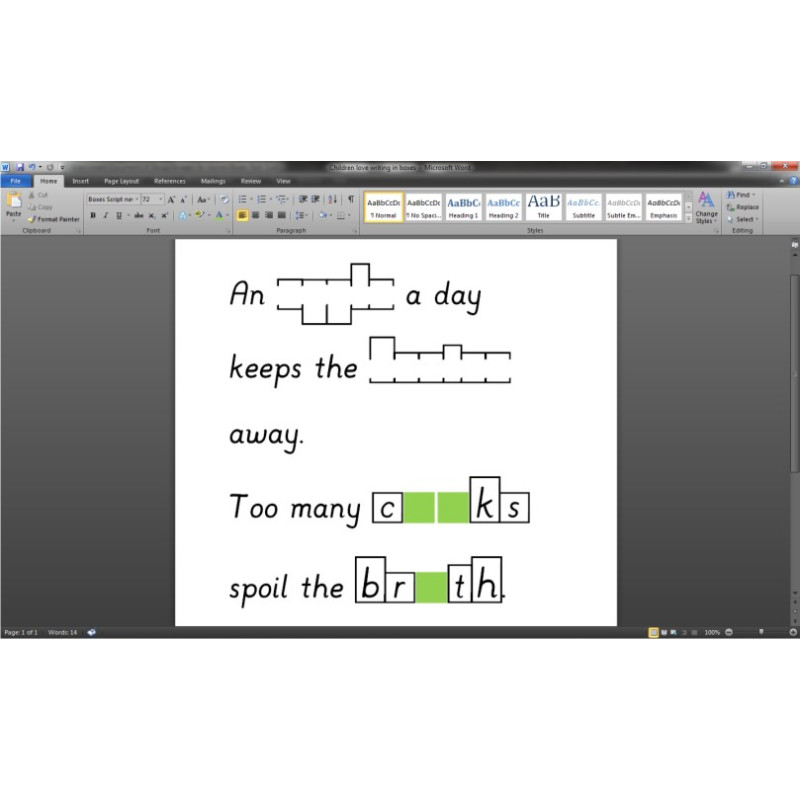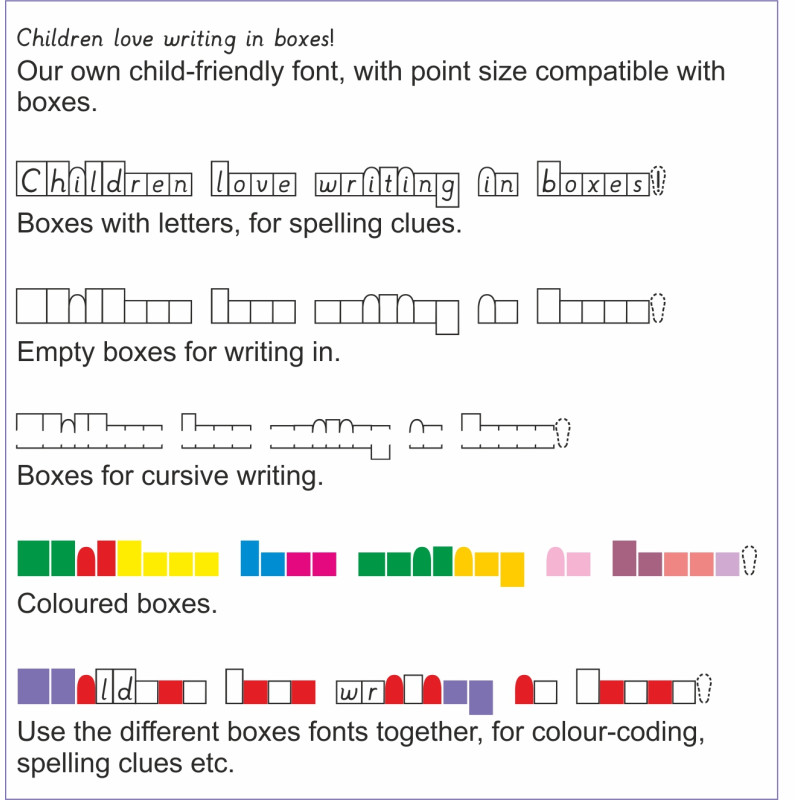
Children love writing in boxes! The Boxes word shape font is a set of six fonts to create visual support for letter and word shapes.  A valuable support for spelling activities, cloze passages, modern languages etc. Includes punctuation and European accents.  Can be formatted like any other font. The Boxes Font is the only tru-type fully configurable word shape font available today, and is recommended by dyslexia advisors. The Boxes Font is included in the Devon dyslexia resources box, a set of the best dyslexia support resources on the market selected by the Devonshire county dyslexia advisory team.
It Includes:
• Boxes with letters for spelling clues
• Empty boxes for writing in
• Boxes for cursive writing
• Our own child-friendly font, with point size compatible with boxes.
• Coloured boxes
• You can use the different boxes fonts together, for colour-coding, spelling clues etc.